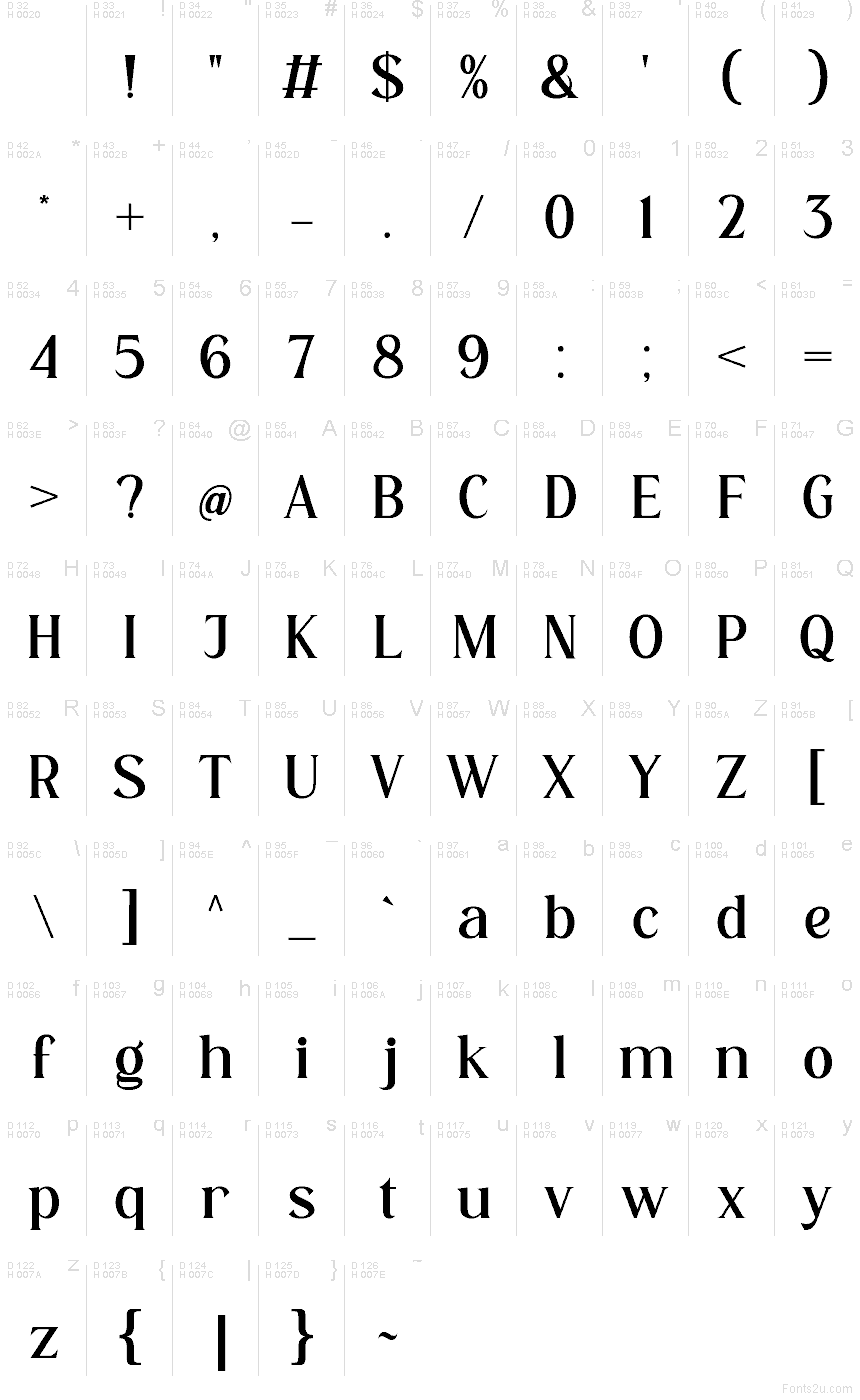
Herkey font by Burhan Afif of HansCo Studio is a free serif font that gives you that polished, bookish authority without feeling stiff. Its generous curves and sturdy, inky serifs create a confident rhythm, while the open spacing keeps words readable and calm even at larger sizes.
Using Herkey shines on editorial headlines, book covers, brand wordmarks, café menus, packaging labels, event invitations, and poster titles. This free font holds its shape beautifully on screen or in print-set it a touch larger and let the letterspacing breathe. Pair it with a crisp sans like Inter or Helvetica for clean, modern contrast.